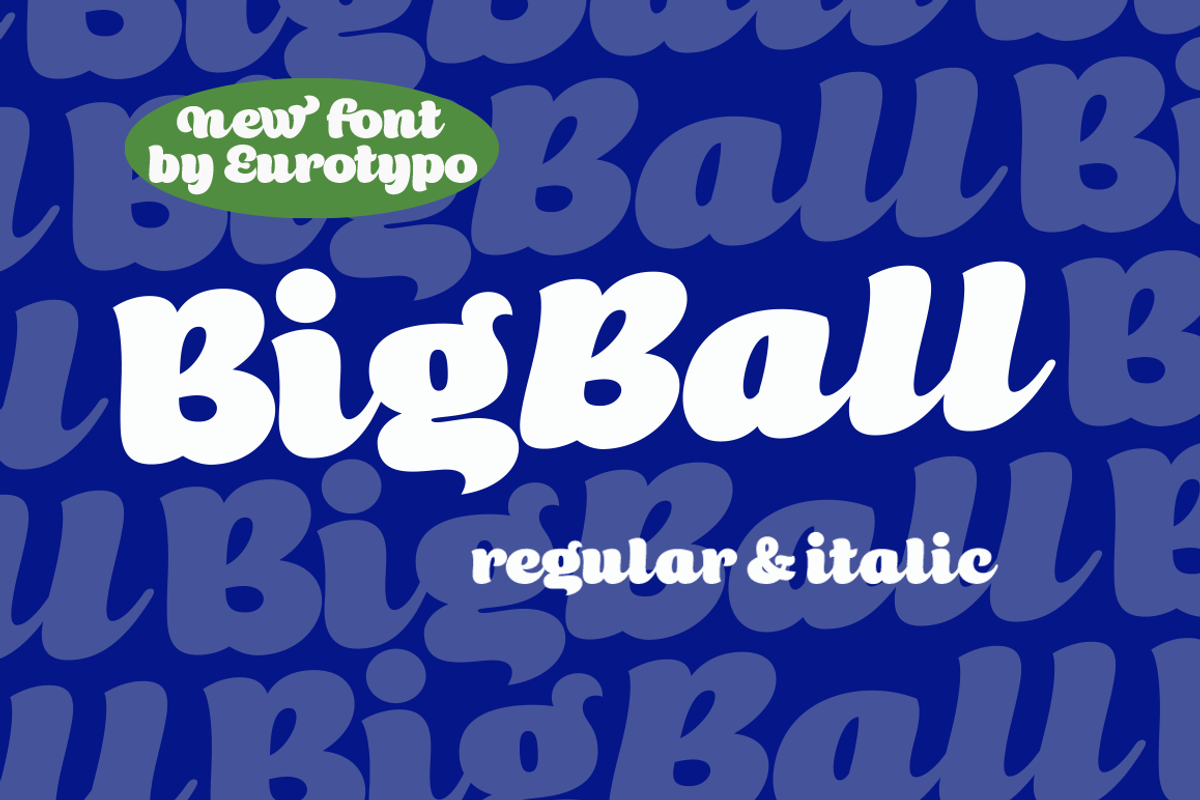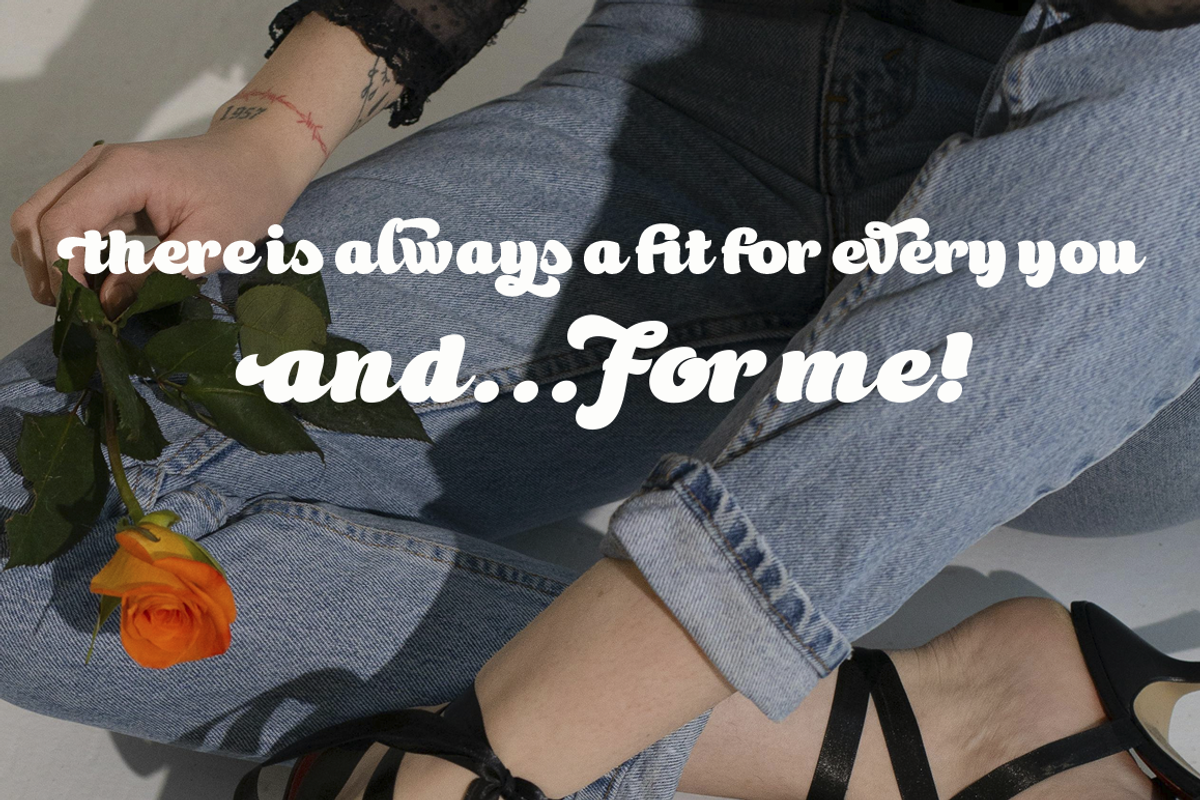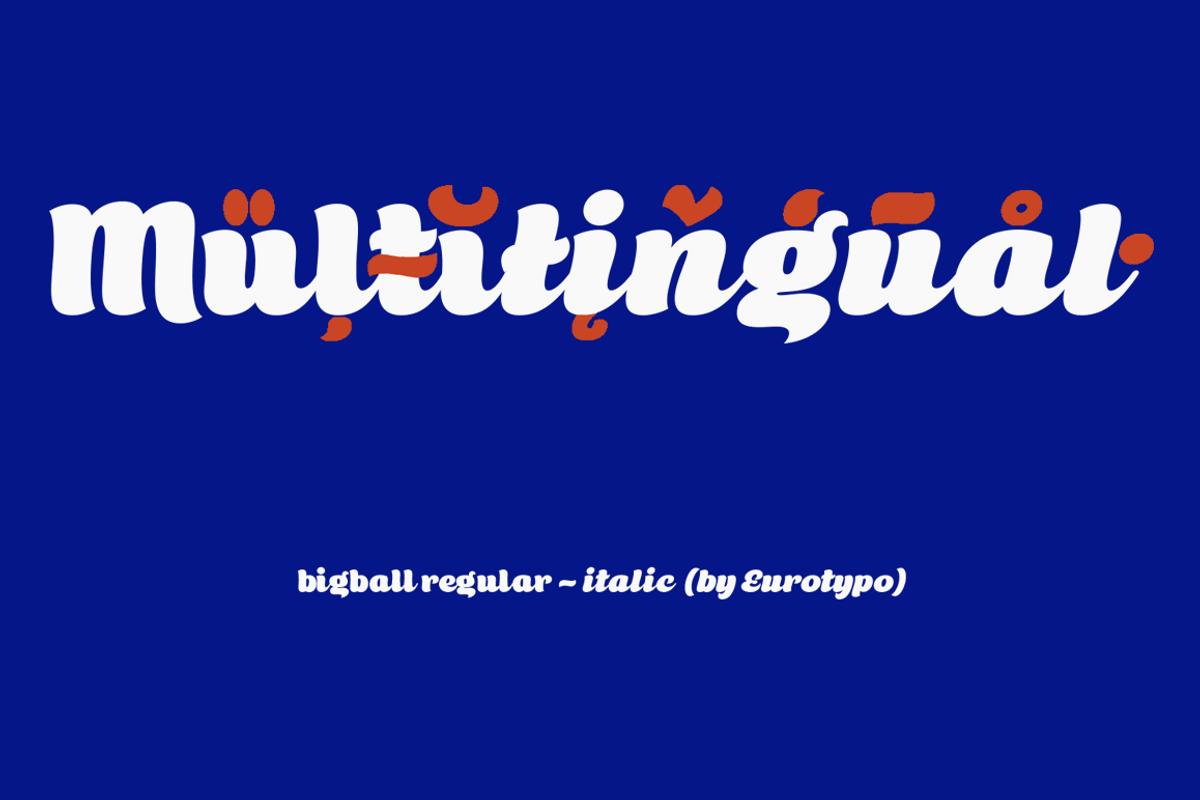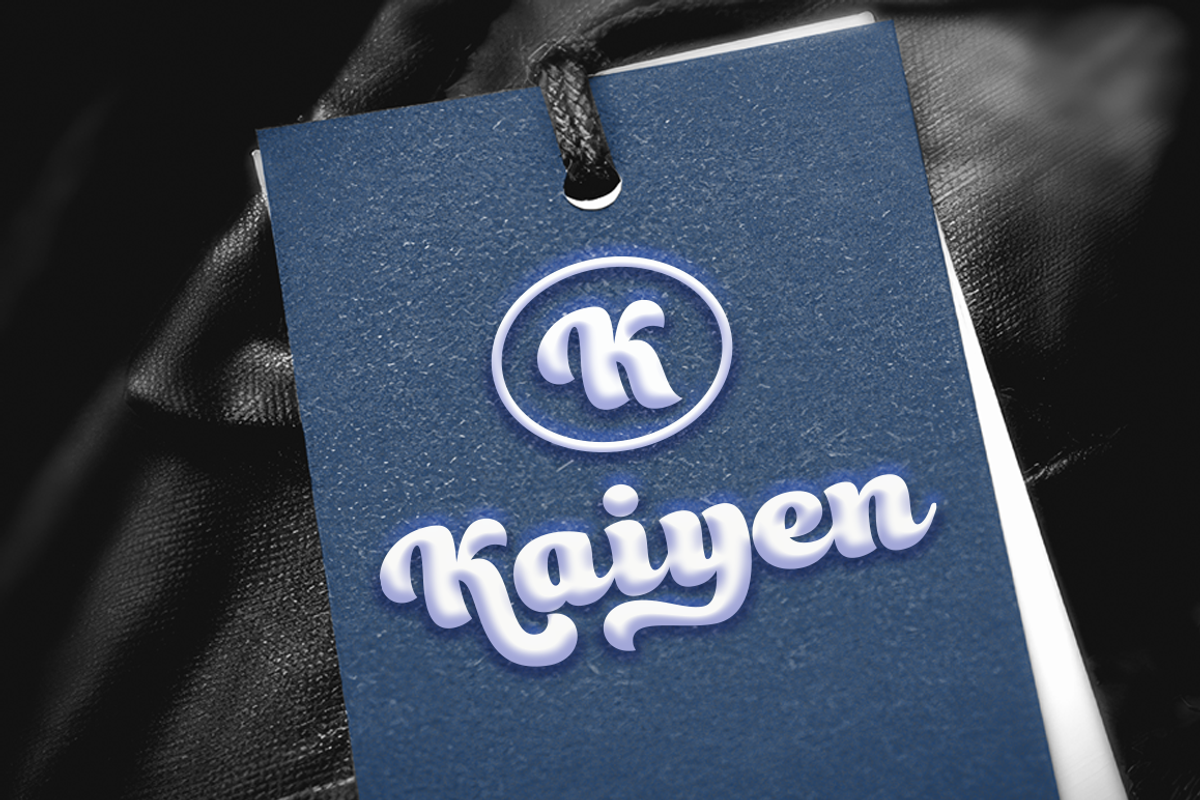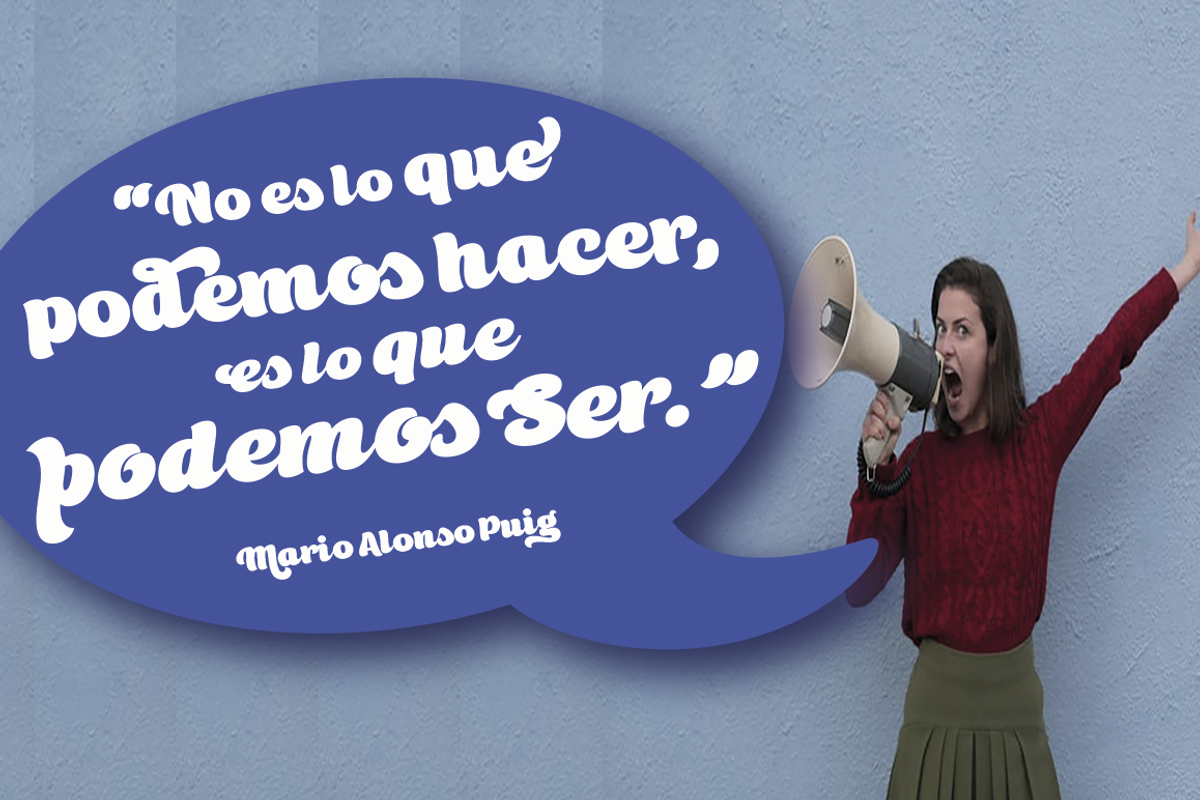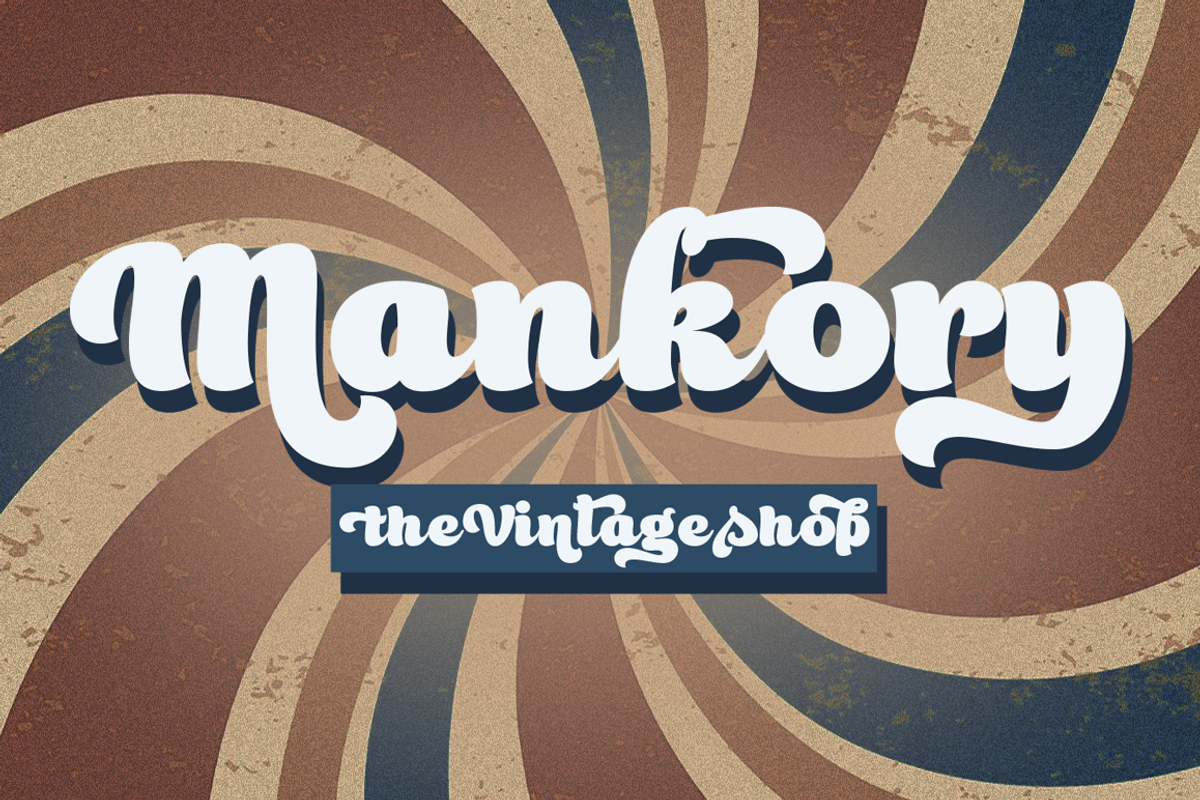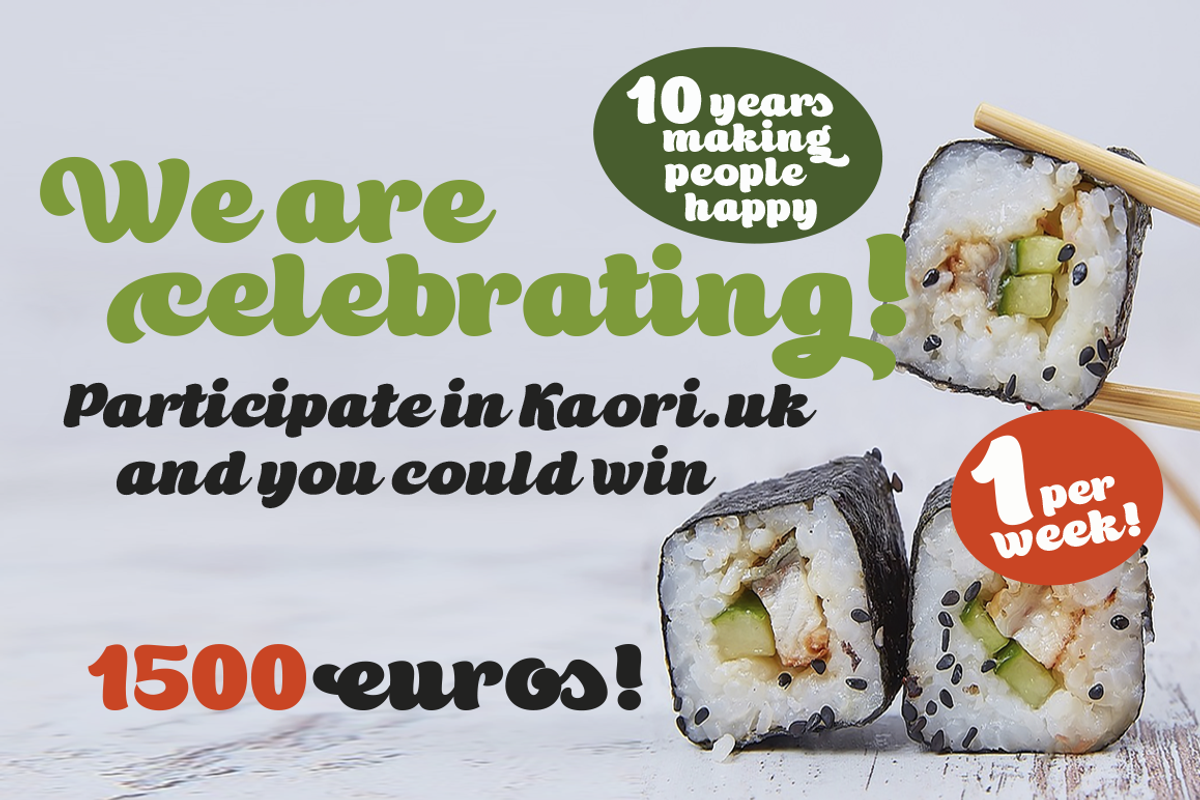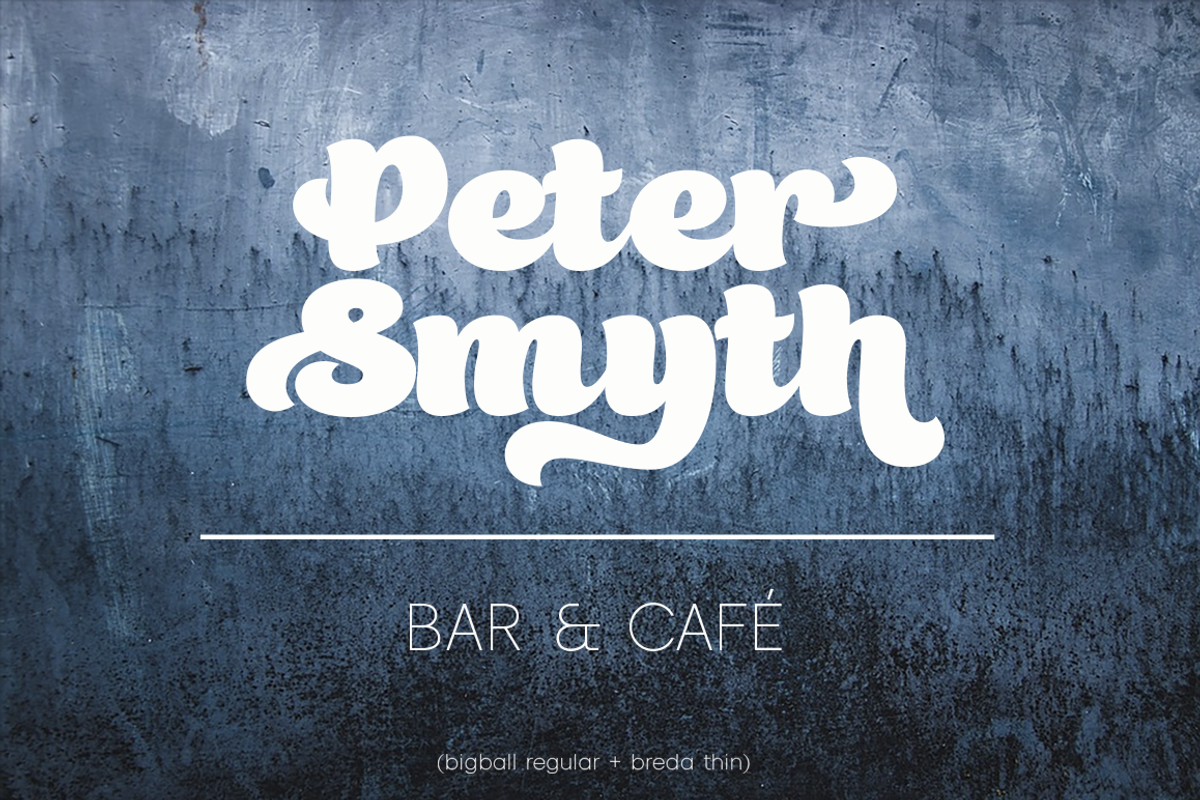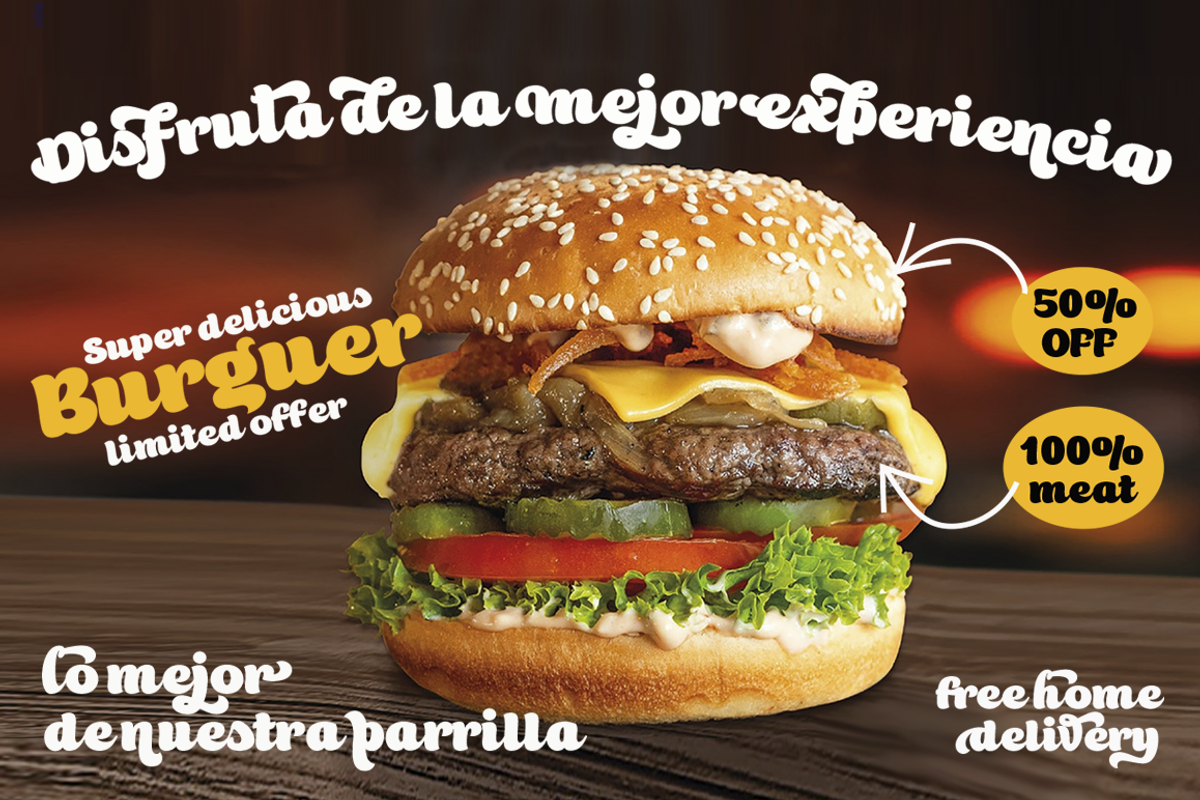
Bigball Family
Design: Carine de Wandeleer
Step into the world of retro typography with Bigball, a font that pays homage to the bold lettering styles of the 70s and 80s. Crafted with meticulous attention to detail, Bigball brings you a treasure trove of ornamental letters, initial and final letters, ligatures, stylistic alternates and sets, allowing you to unleash your creativity and give your text or logo a truly distinctive flair.
With both regular and italic versions, plus an array of OpenType features at your fingertips, Bigball empowers you to create captivating designs for a multitude of purposes. Whether you're working on vintage branding, eye-catching packaging, retro-inspired logos, trendy t-shirts, vibrant posters, captivating book covers, or much more, Bigball is your ultimate companion!
Elevate your design projects with Bigball – where every letter tells a story, and every creation is as unique as you are. Explore the endless possibilities and let your imagination run wild with Bigball!